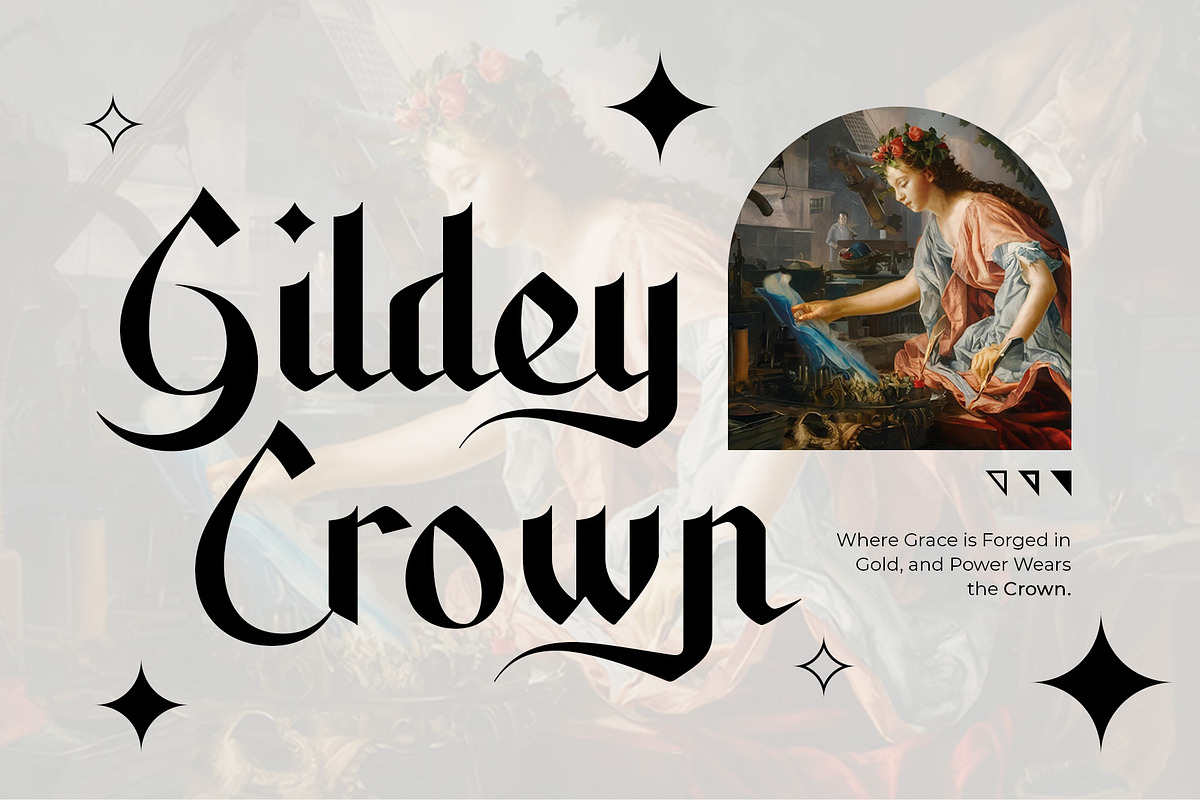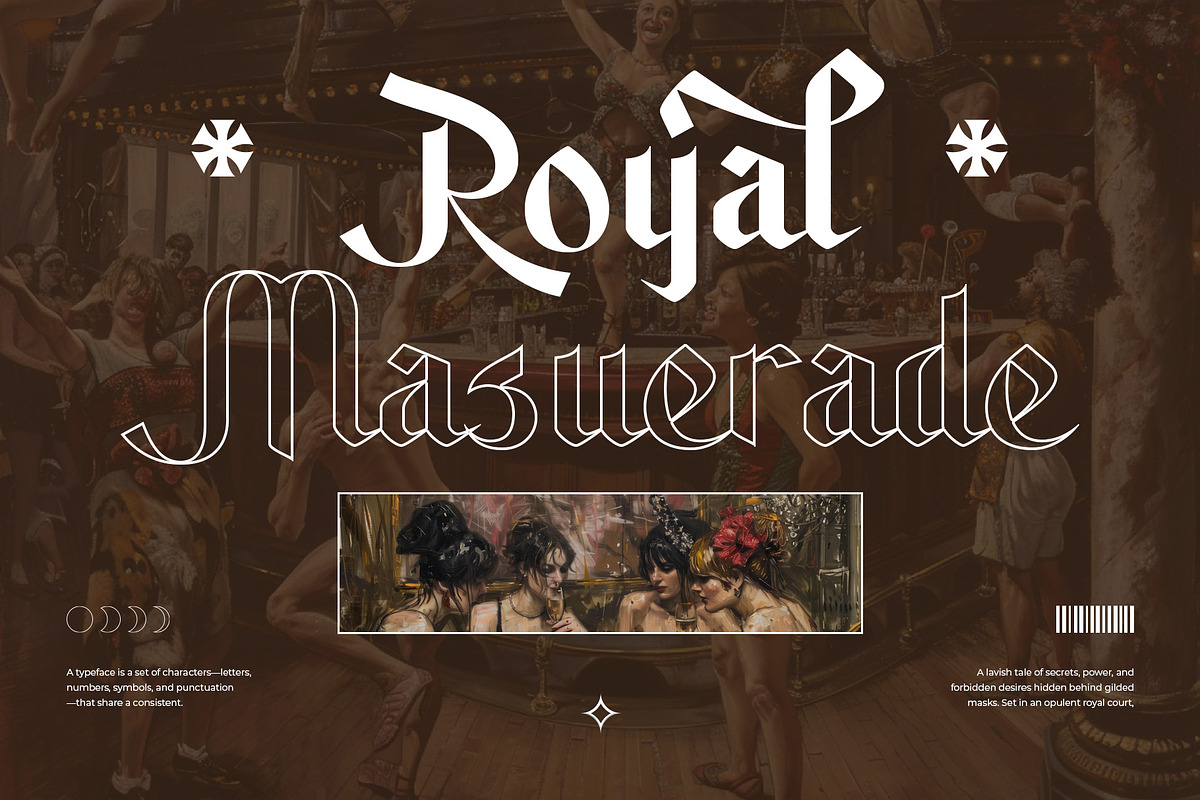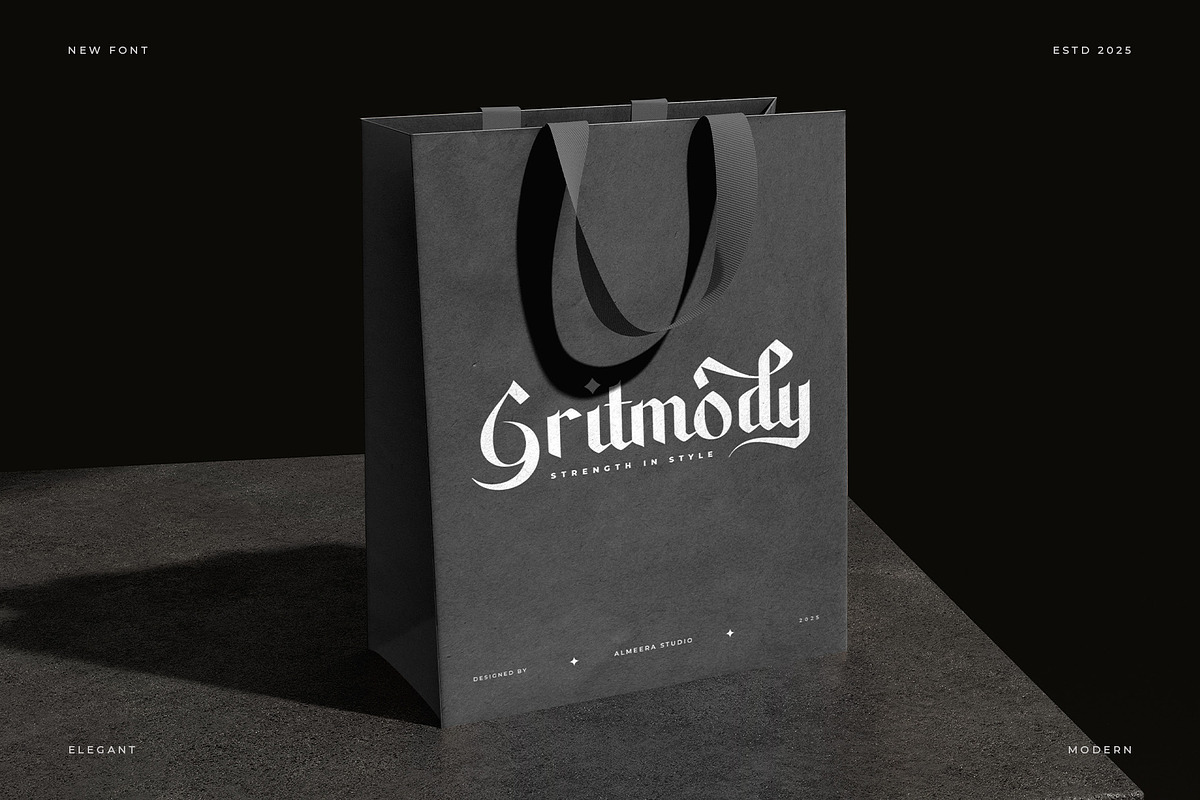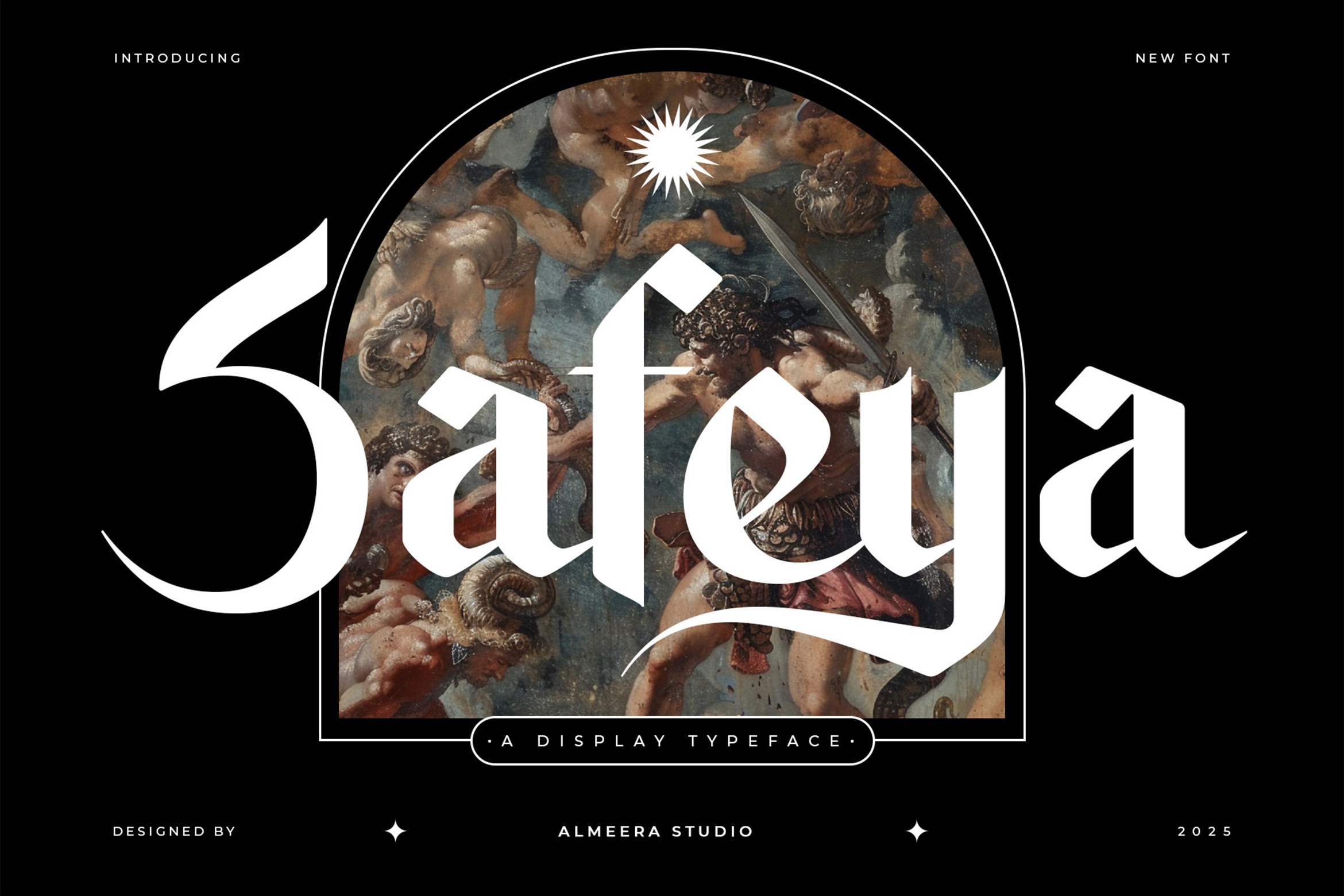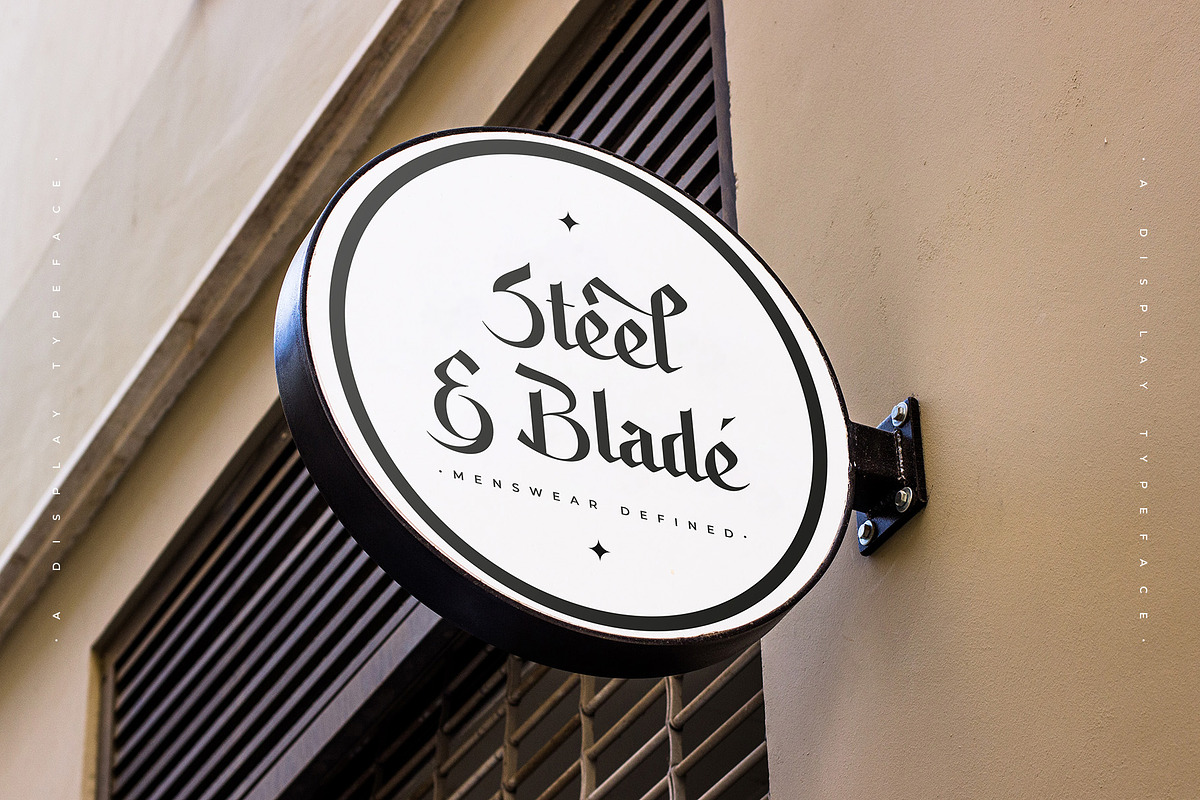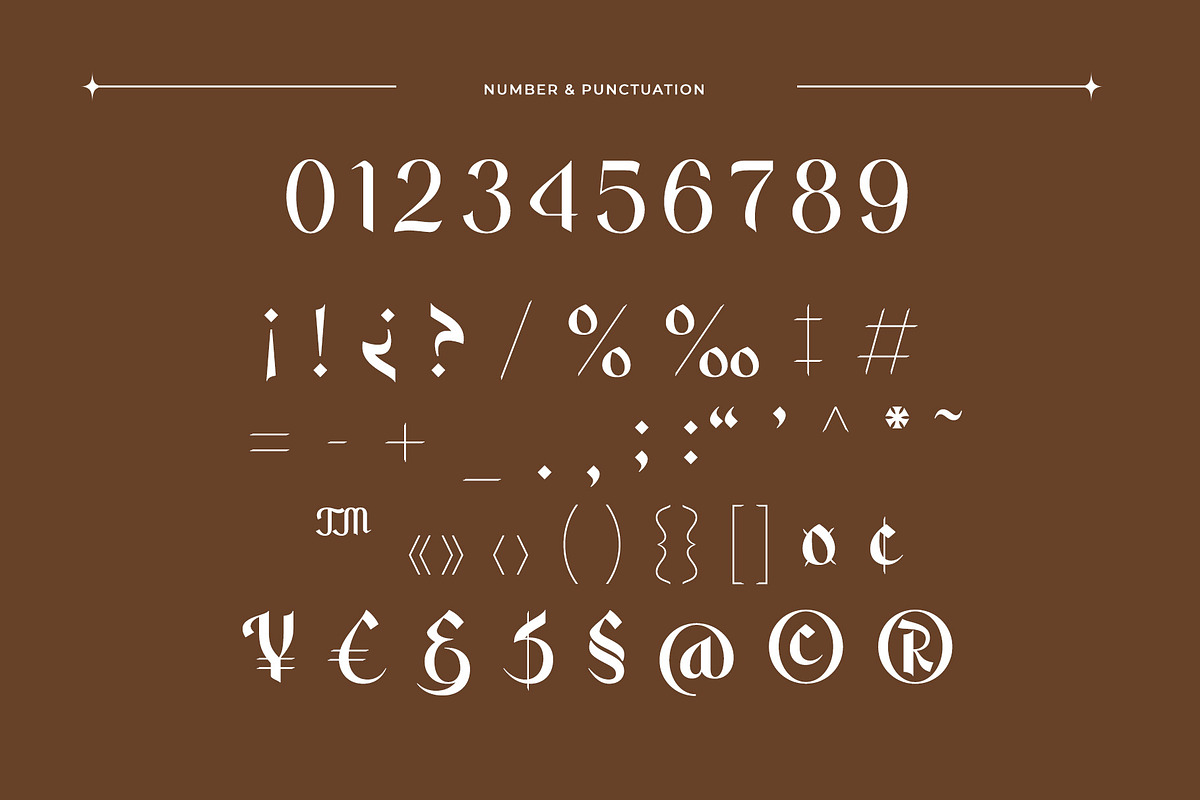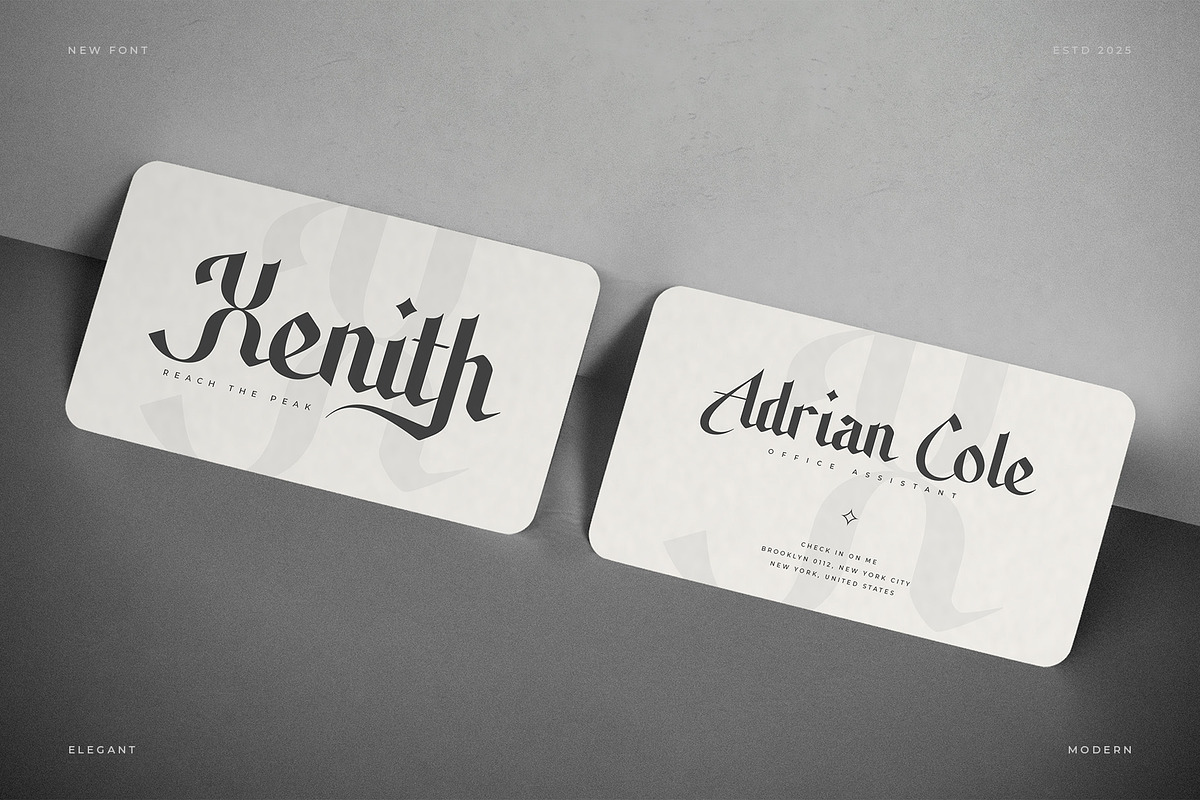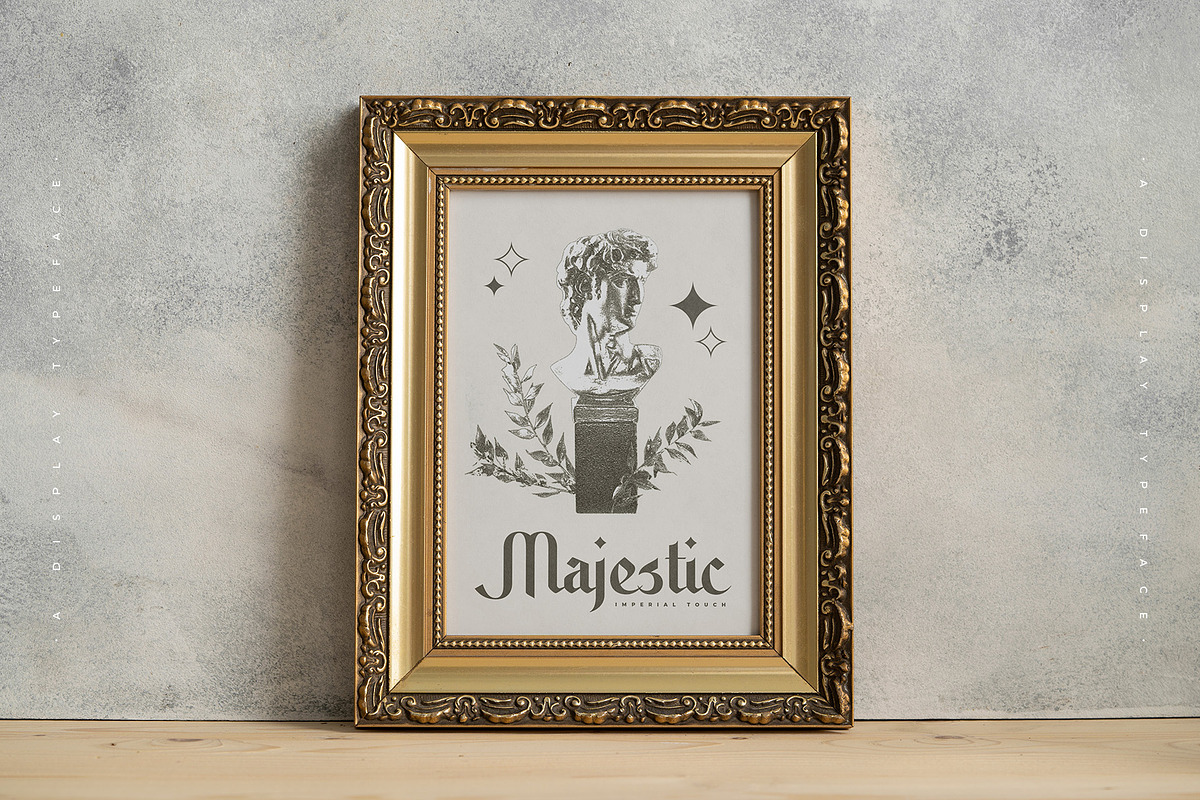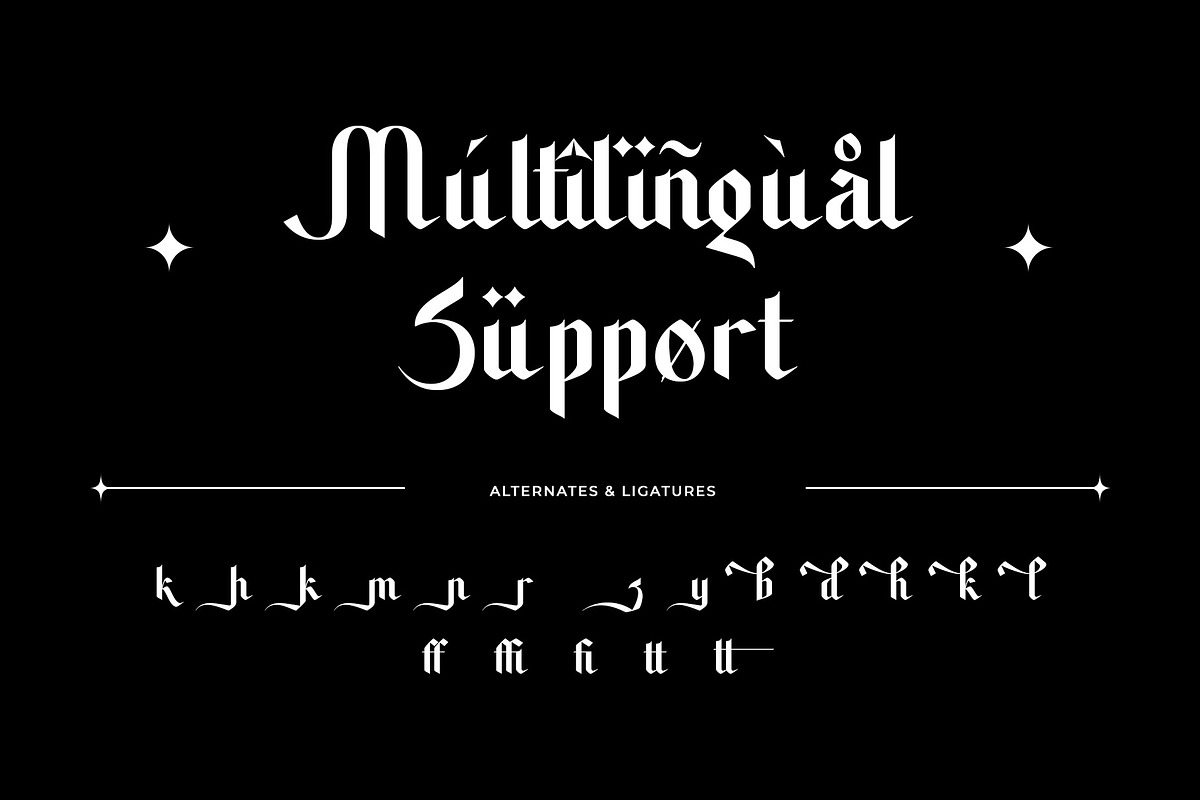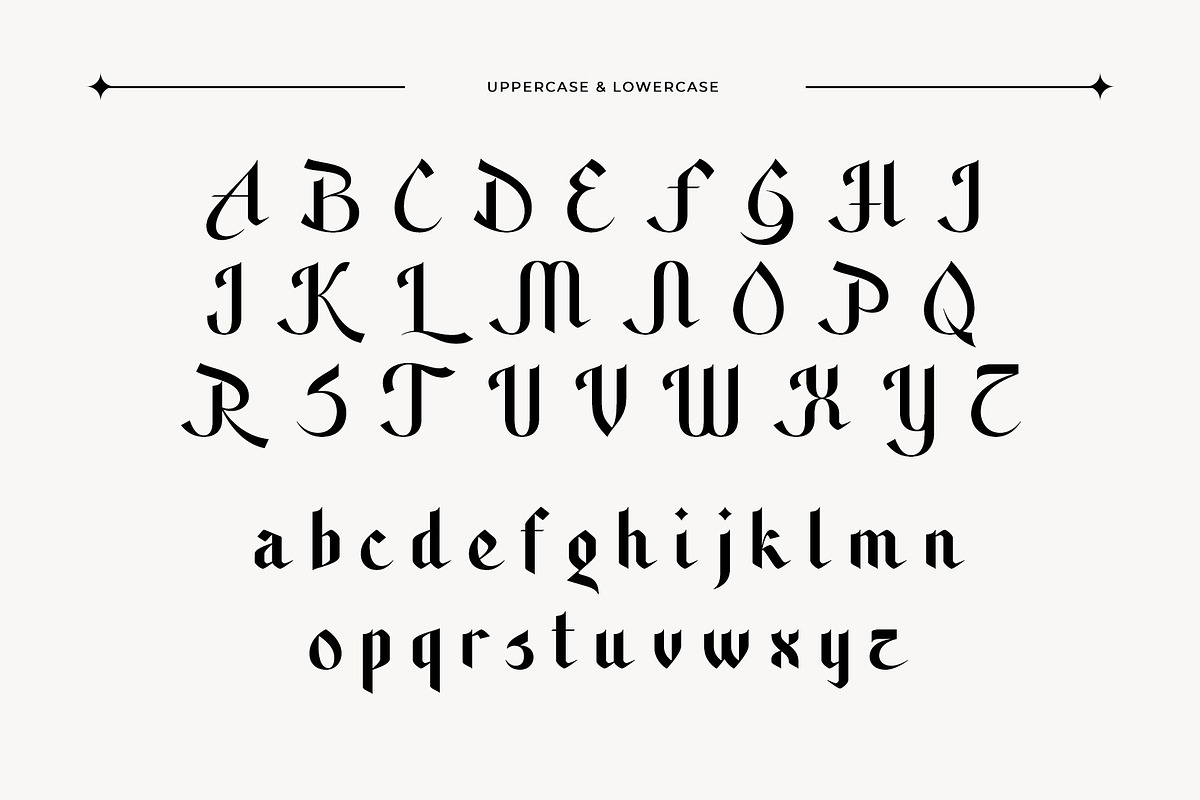
Safeya – Display Typeface
Make a statement with Safeya, a bold display typeface designed for striking headlines and impactful branding. Safeya combines modern style with a hint of gothic influence, giving your designs a unique, fashionable, and editorial-ready aesthetic.
Whether you’re working on magazine covers, luxury branding, fashion campaigns, or packaging, Safeya adds a dramatic and stylish touch. With multilingual support and PUA encoding, this typeface is easy to use across all creative platforms.
- Unique uppercase & lowercase alphabets
- Bold and decorative display style
- Perfect for headlines, branding & packaging
- Includes punctuation & numbers
- Stylish alternates for creative layouts
- Multilingual support (Western European languages)